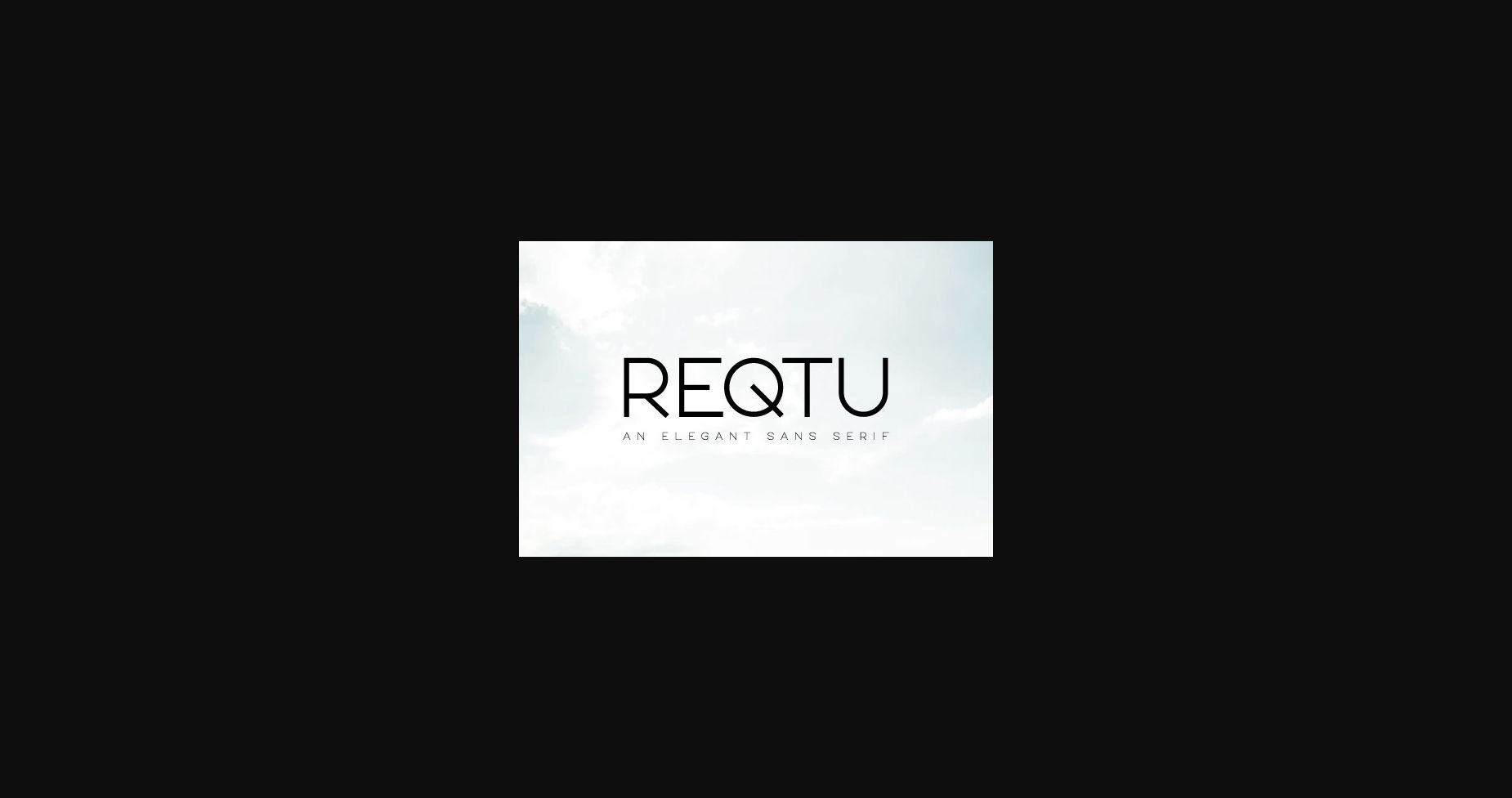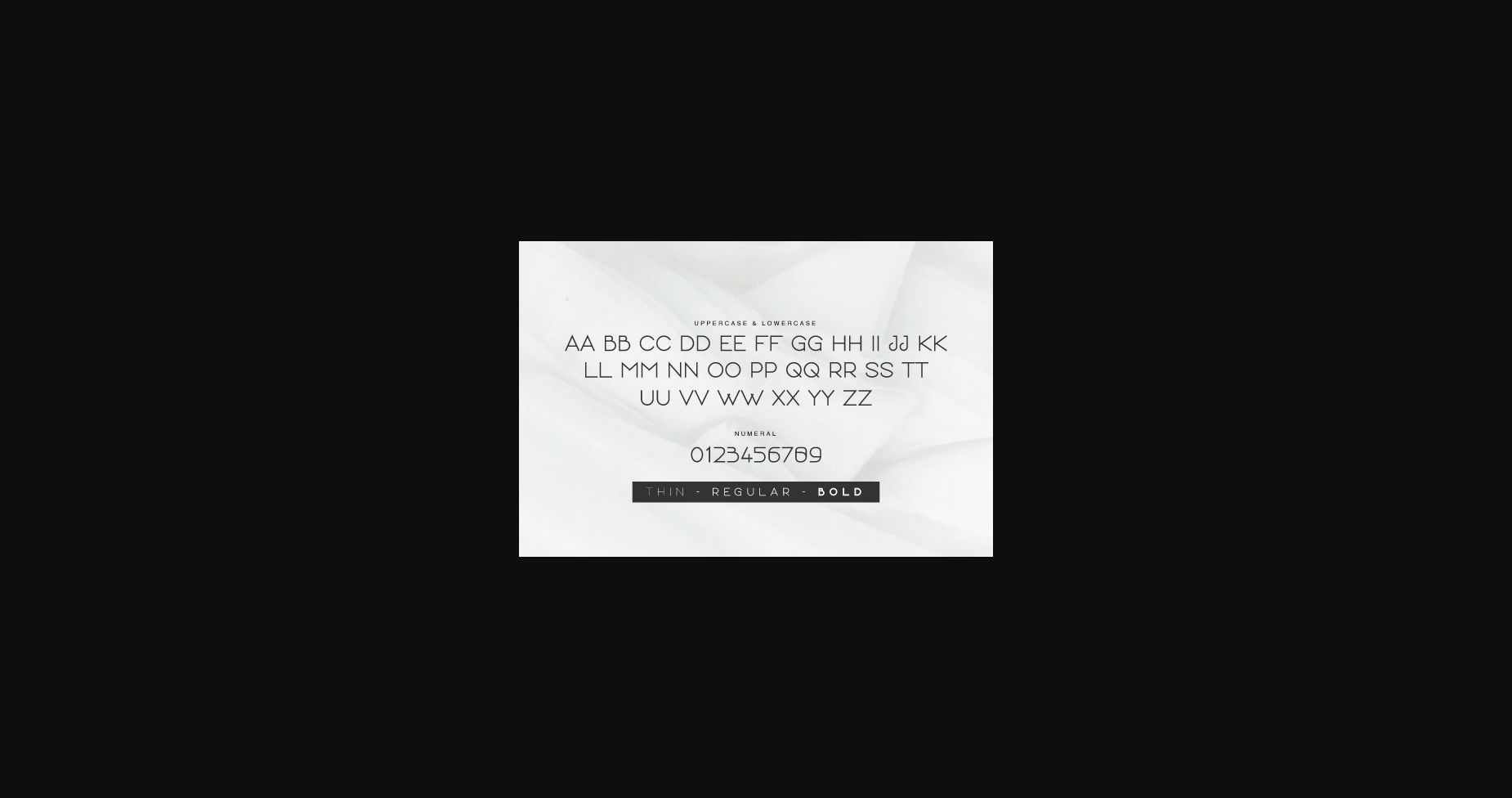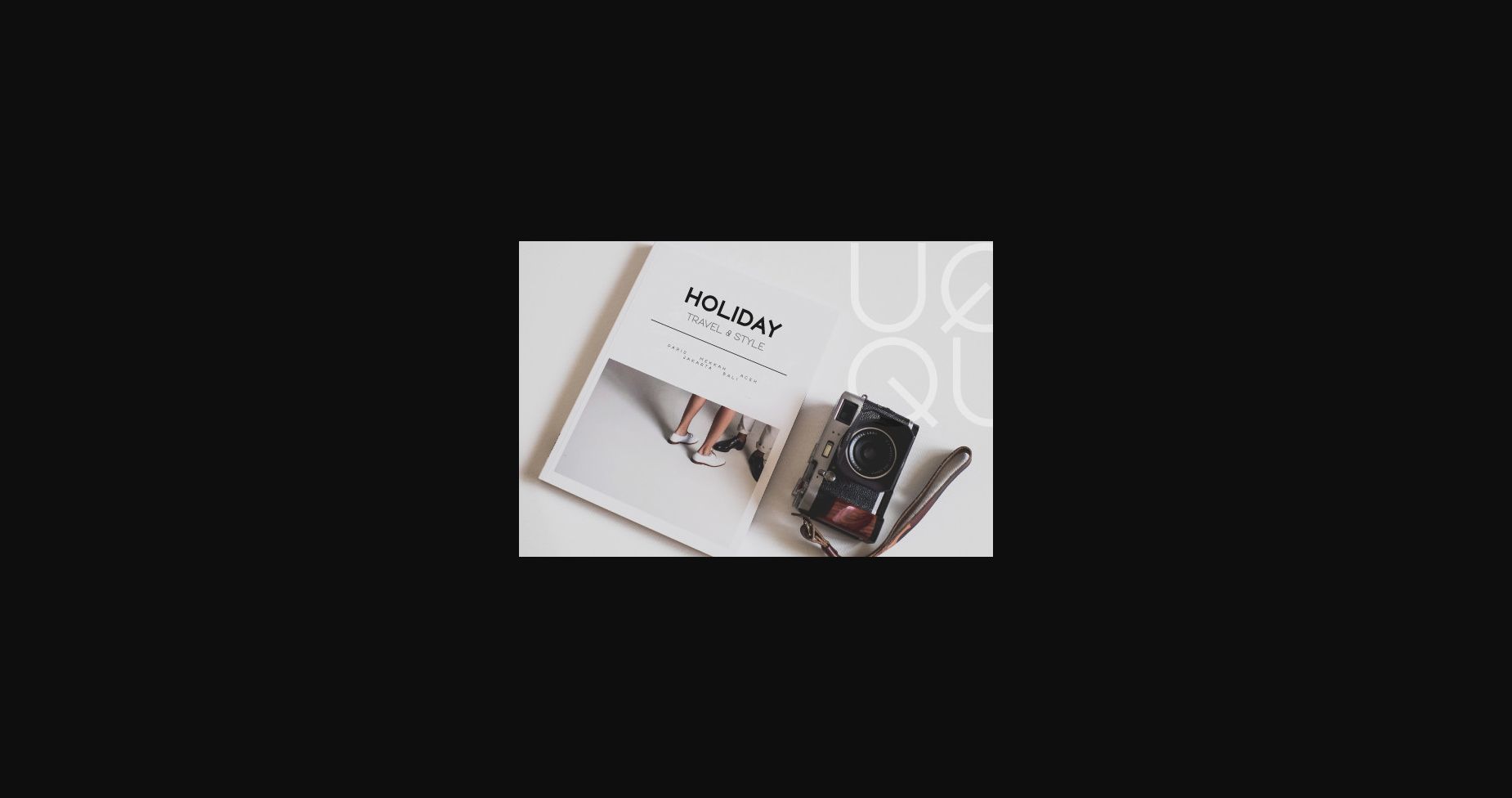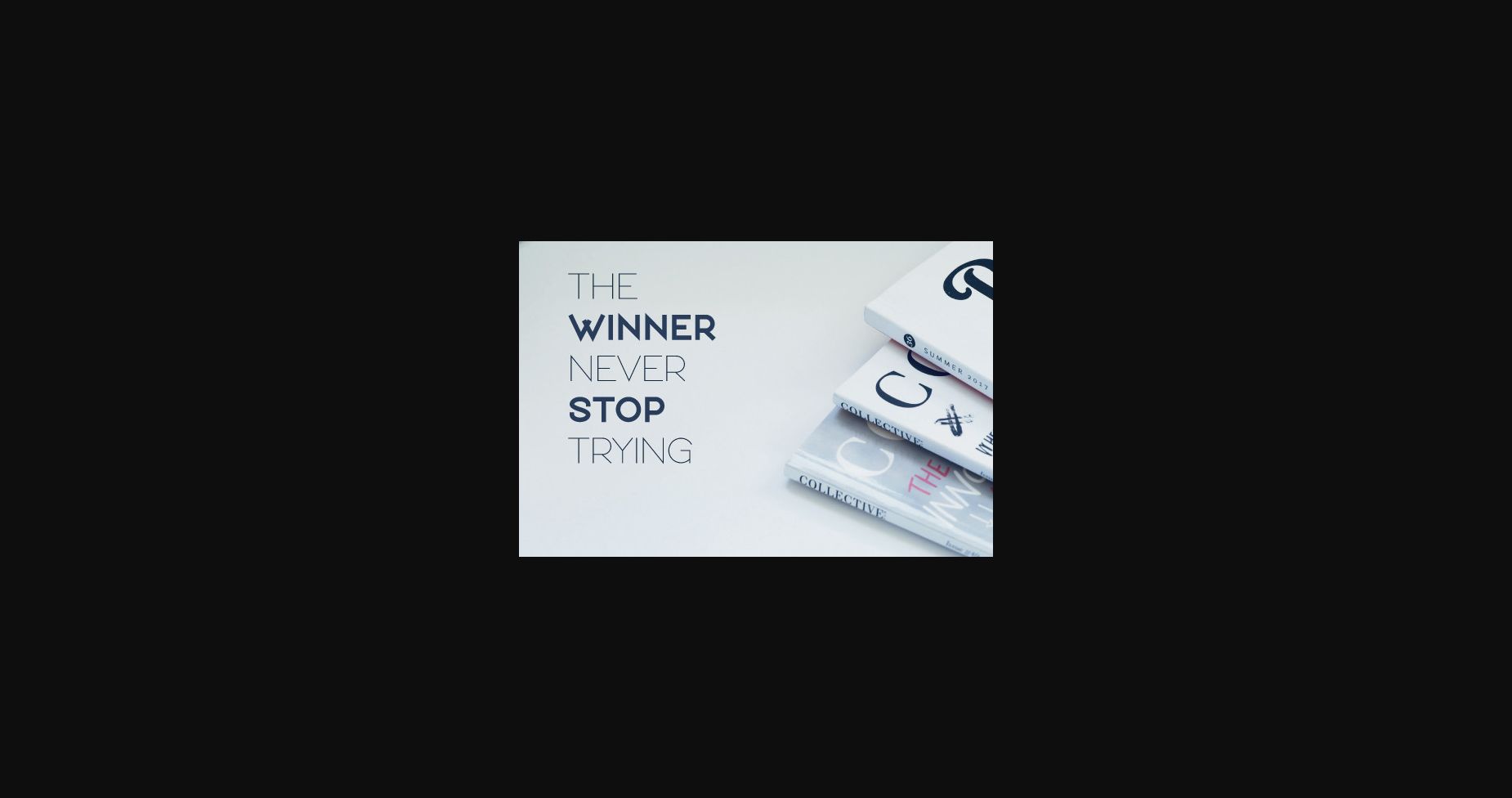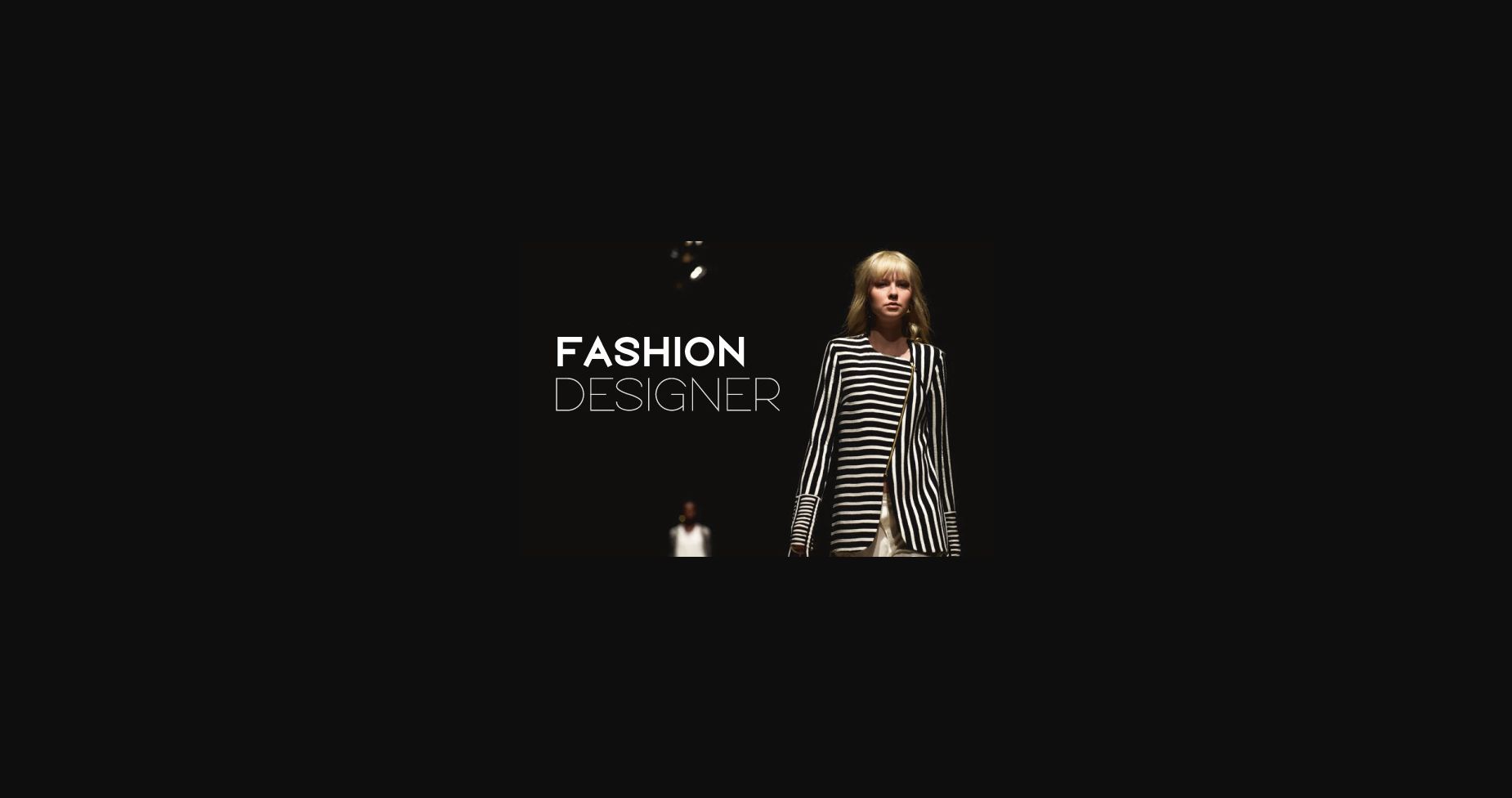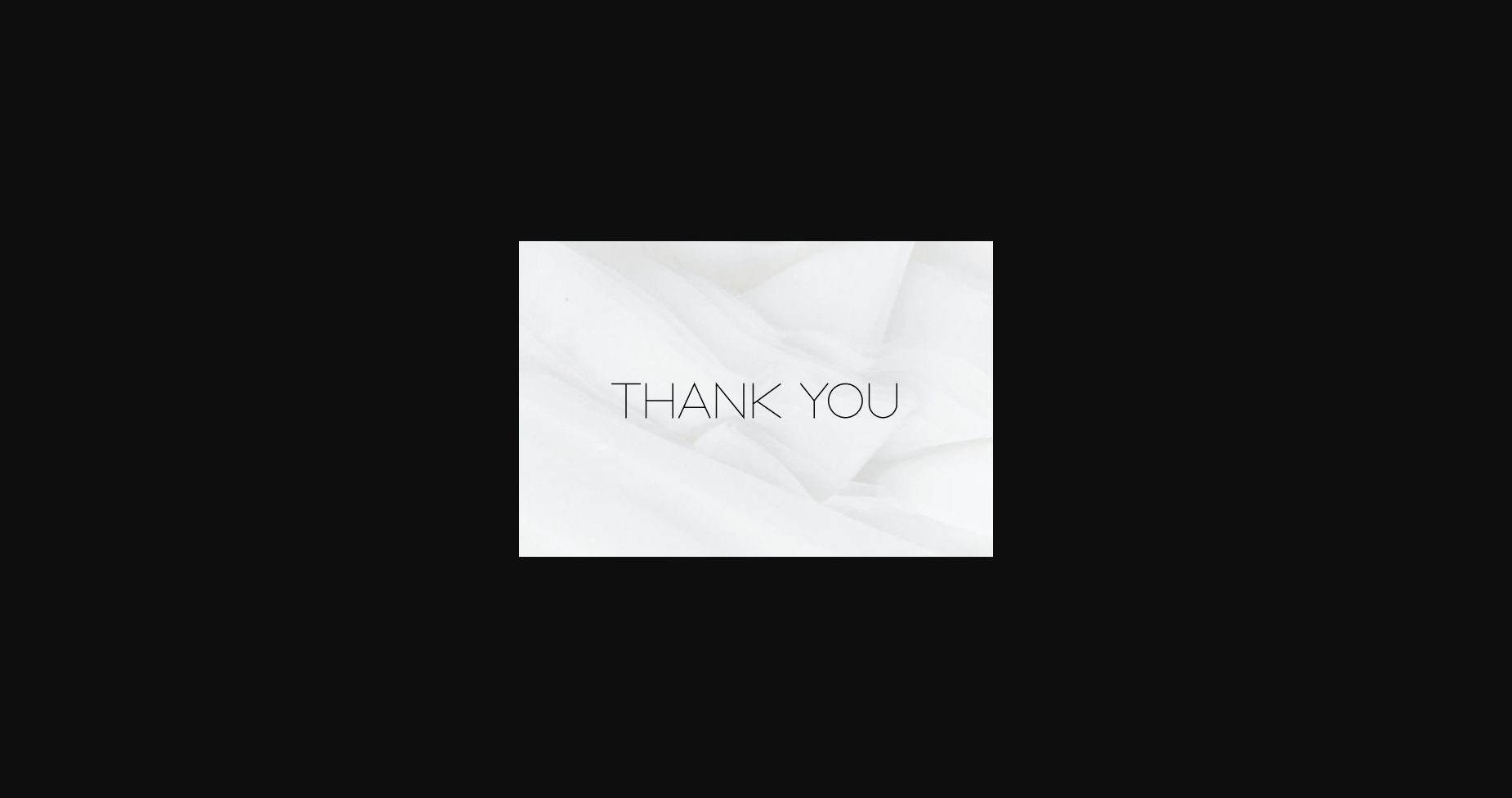
Reqtu Font
About Reqtu Font
Reqtu is a minimal and neat sans serif font. It can easily be matched to an incredibly large set of projects, so add it to your creative ideas and notice how it makes them stand out!